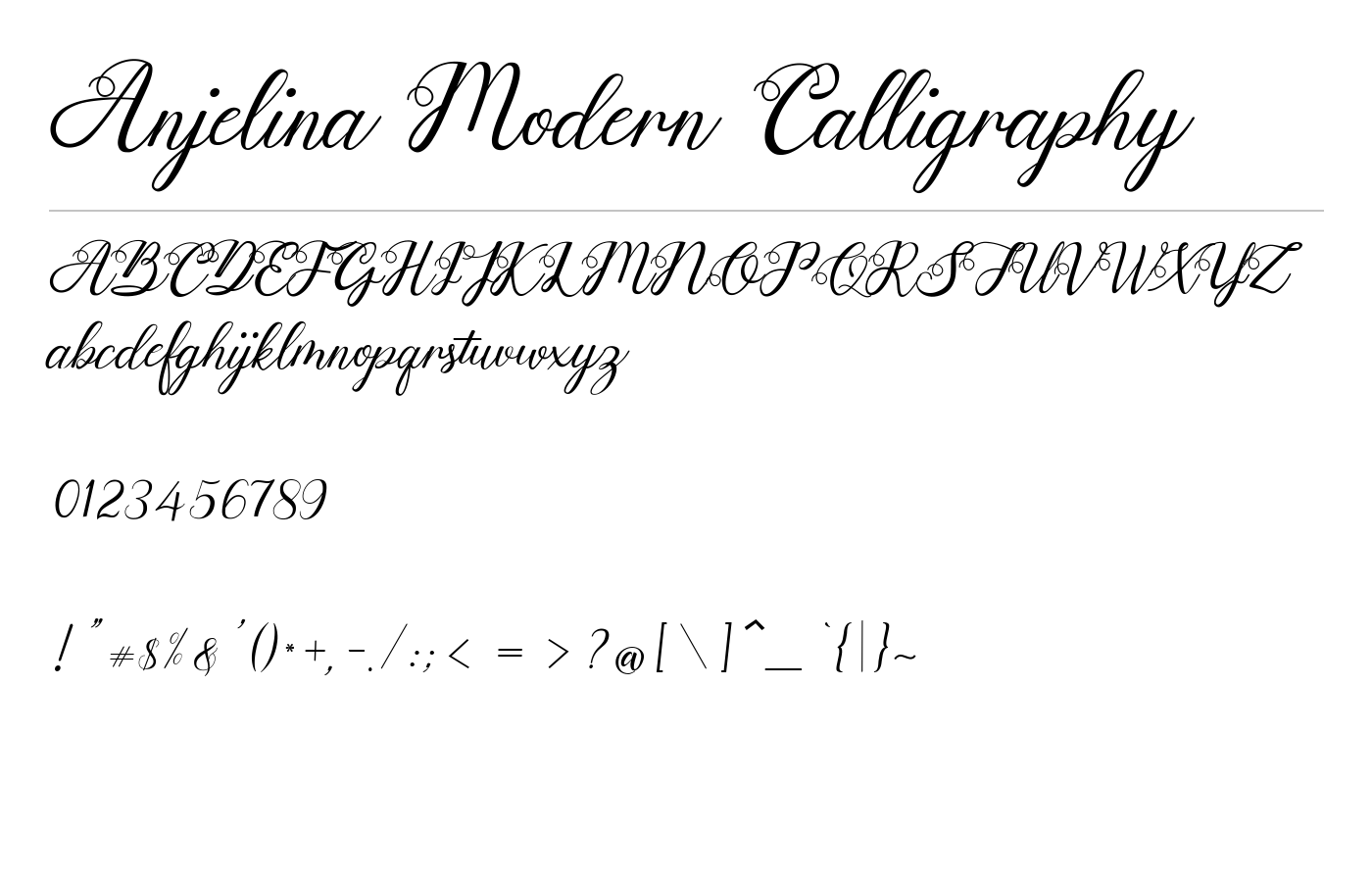
Anjelina Modern Calligraphy is an elegant, flowing script font with fine strokes and delicate swashes, giving it a sophisticated and graceful appearance. Its slender letterforms and decorative uppercase characters make it ideal for luxury branding, wedding invitations, and stylish editorial use, where a touch of refined charm and femininity is desired. This font works best for headlines and logos, adding a personalized, artistic flair to any design.
Anjelina Modern Calligraphy Font
About Anjelina Modern Calligraphy Font
| Font family | Anjelina Modern Calligraphy Font |
| Designer | utopia19 |